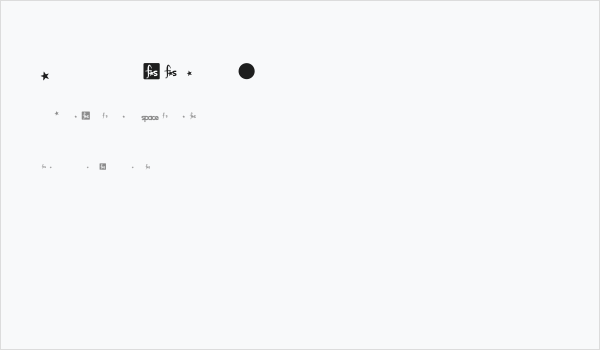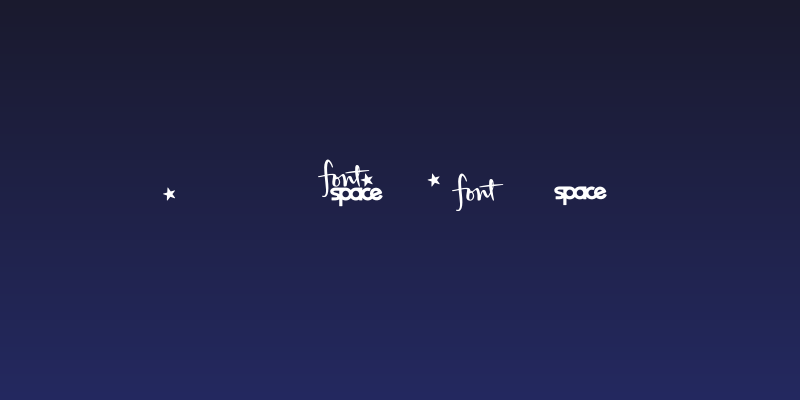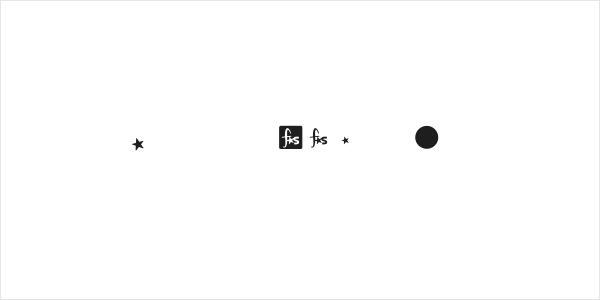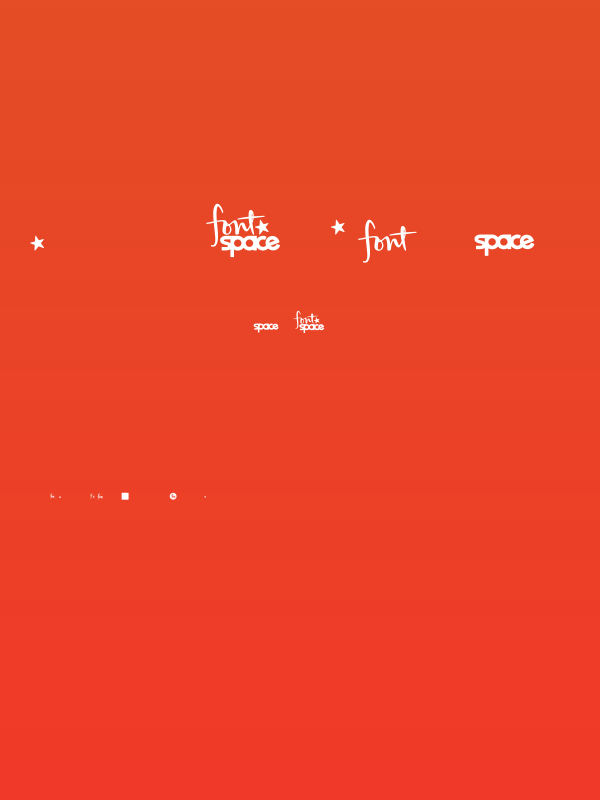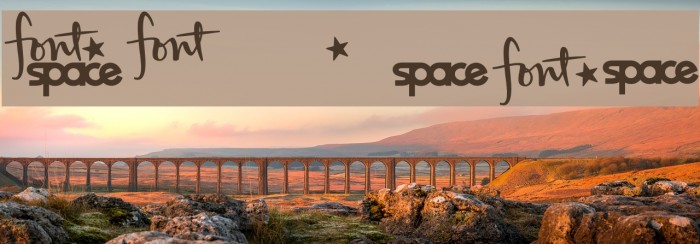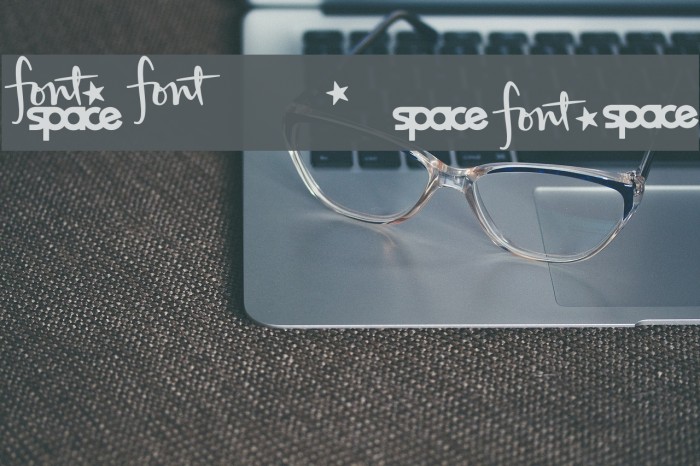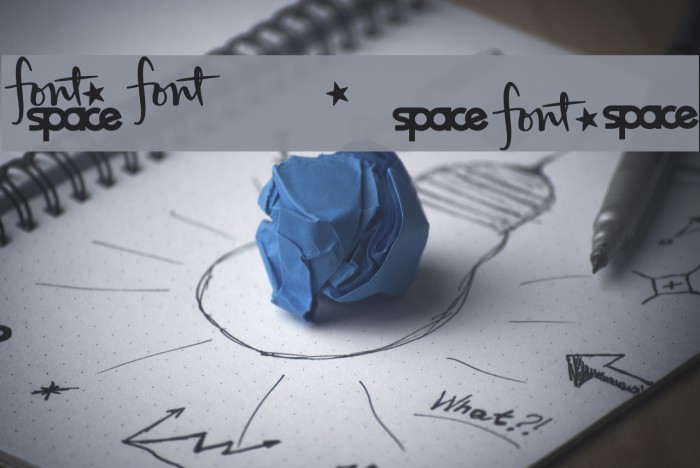
FontSpaceLogo Font
FontSpaceLogo Description
This font features a playful and whimsical style, characterized by its handwritten appearance with a touch of flair. The letters are connected with a smooth flow, giving it a casual yet artistic look. The inclusion of stars as decorative elements adds a unique charm, making it stand out. The font maintains a consistent stroke width, ensuring readability while still conveying a sense of creativity and fun. It's perfect for projects that require a personal touch or a youthful vibe.
| Proposed Projects | Ideal for greeting cards, children's book covers, playful branding, and creative social media graphics. |